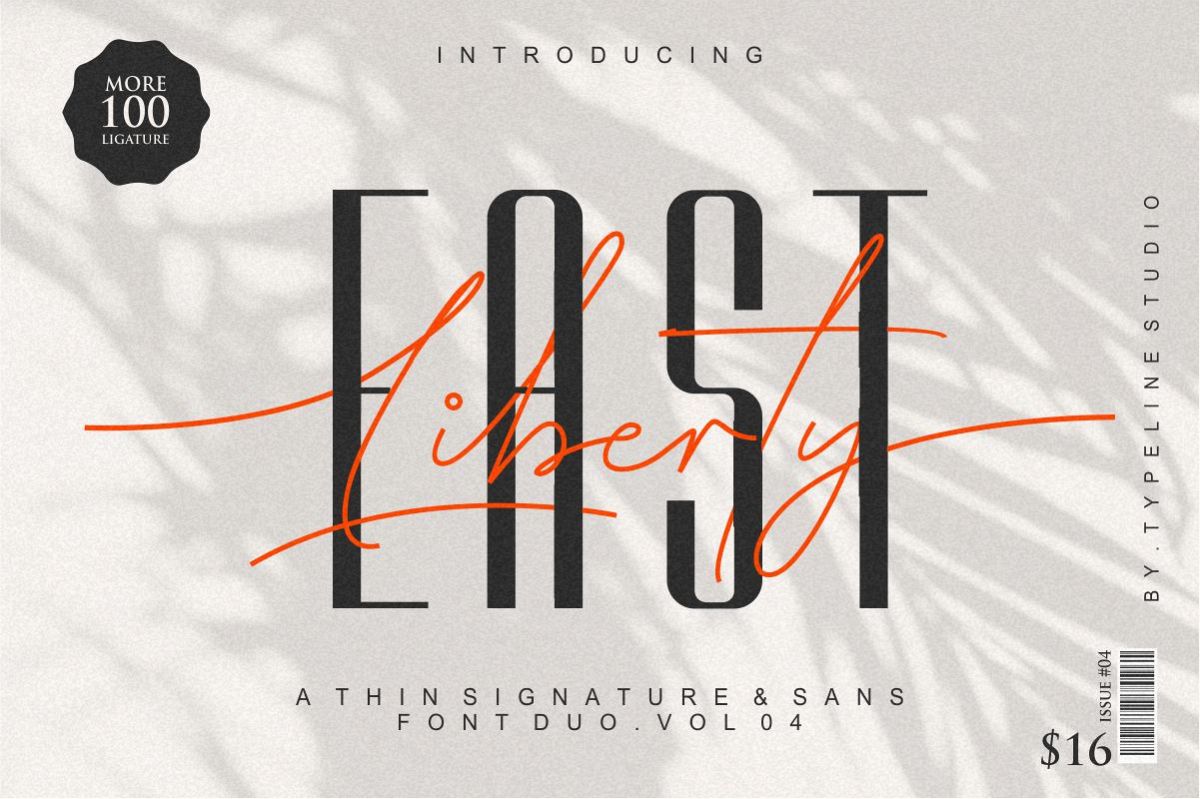
East liberty | Signature & sans serif
ntroducing our newest font duo with the name East liberty thin signature and sans serif, this is a duo between a modern script signature and sans serif condensed which is perfect for creating logos, brands, tshirt, photographic watermarks, beauty products, magazine covers, magazine content, quotes and more.
The font signature is enlightened with more than 100 ligature that you can see in previews, and support it in various languages.and font beauty is a minimalist condensed sans serif font with a proportional size that is suitable for the production of mimalist products.
• East Libertysans serif condensed**include, numbers, punctuation,alternates, and it also supports other languages :)
• East Liberty signature/ modern script was built with OpenType features and includes more 100 Ligature, numbers, punctuation,alternates, and it also supports other languages :)